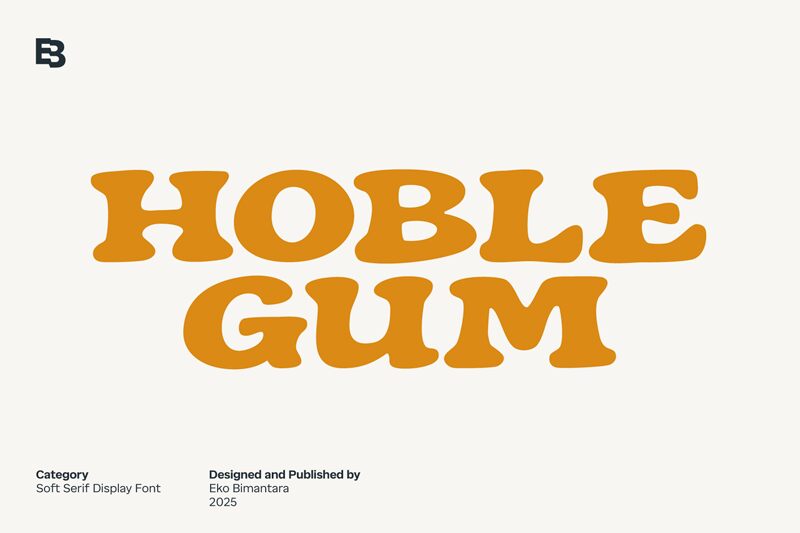
Hoblegum Regular
Hoblegum font by Eko Bimantara integrates groovy styles into a visually impactful display typeface. The expanded, bold presence of its letters makes it more than just readable; the contents come alive with character, energy, and vintage vibes inspired by retro styles. Its artistic touch and flowing letterform make this a one-of-a-kind free font.
Experience this unique creation in print or digital uses such as posters, flyers, comics, cartoons, branding elements, product packaging designs for candies or soda cans. Its playful appearance brings life to movie titles or video presentations with a fresher and modern look.